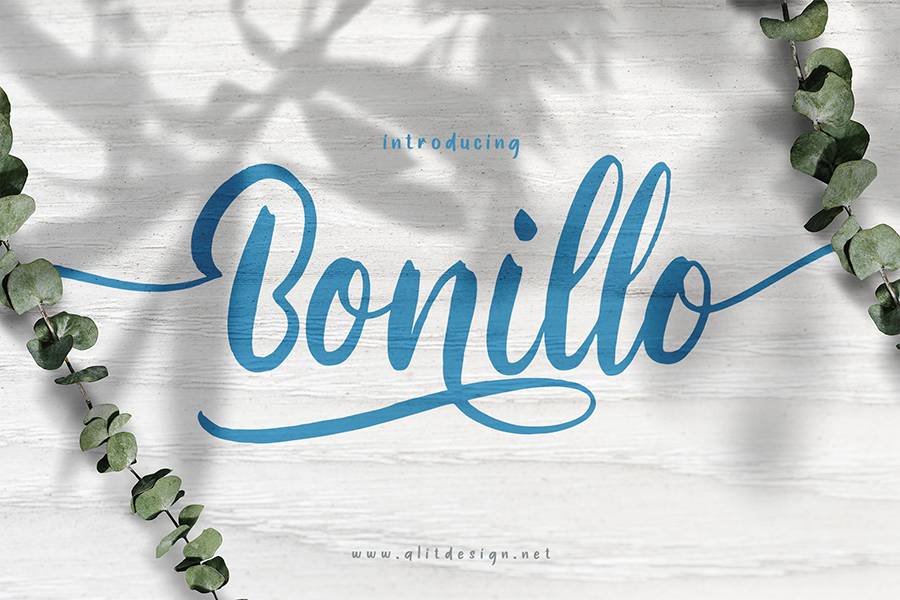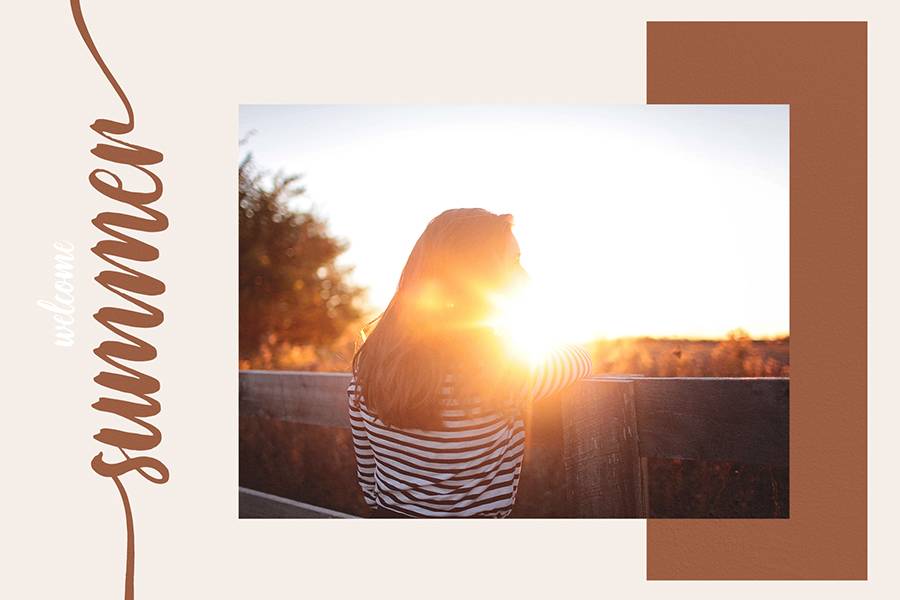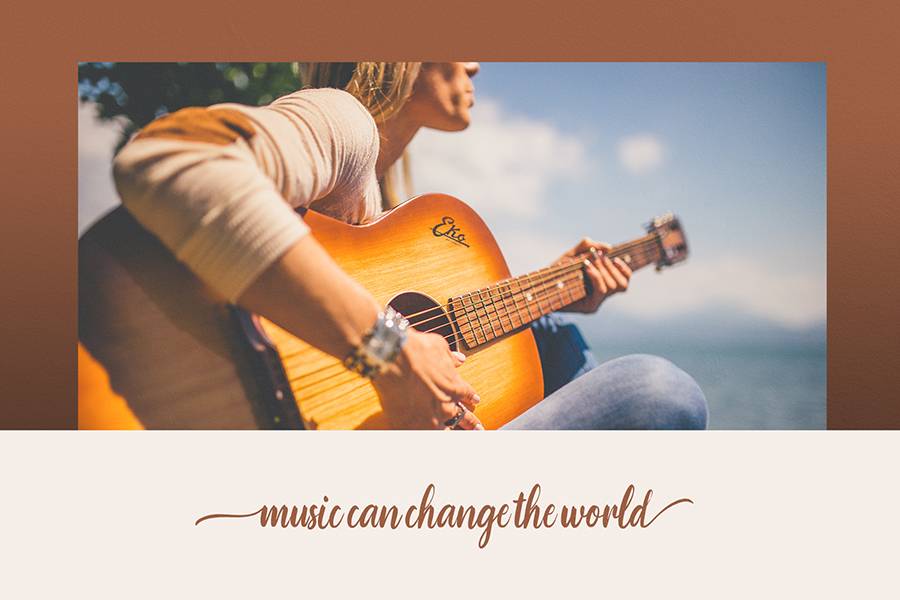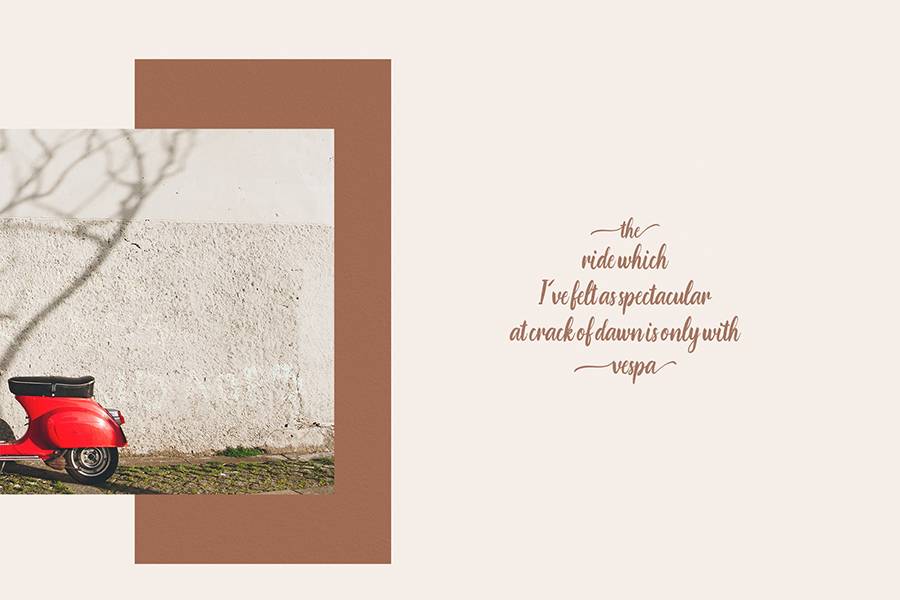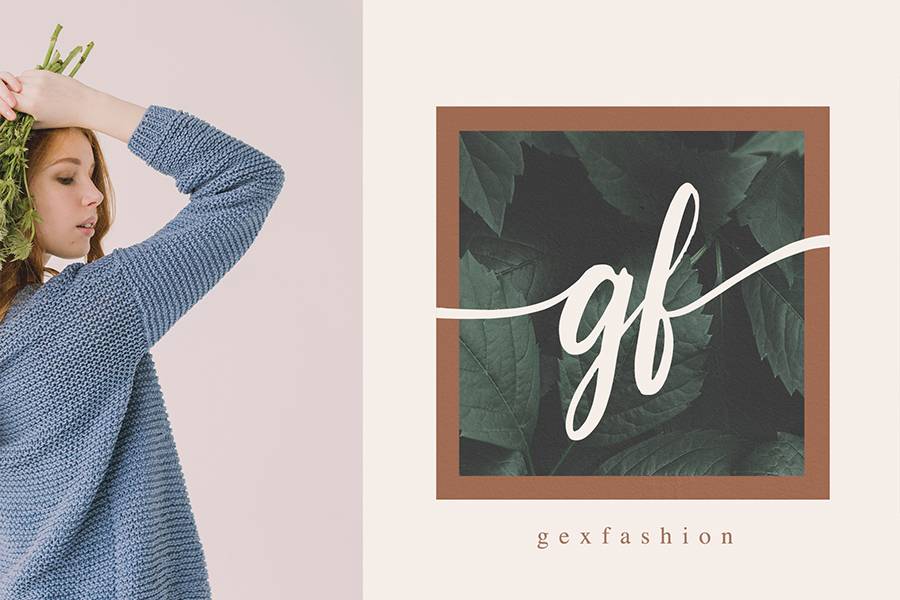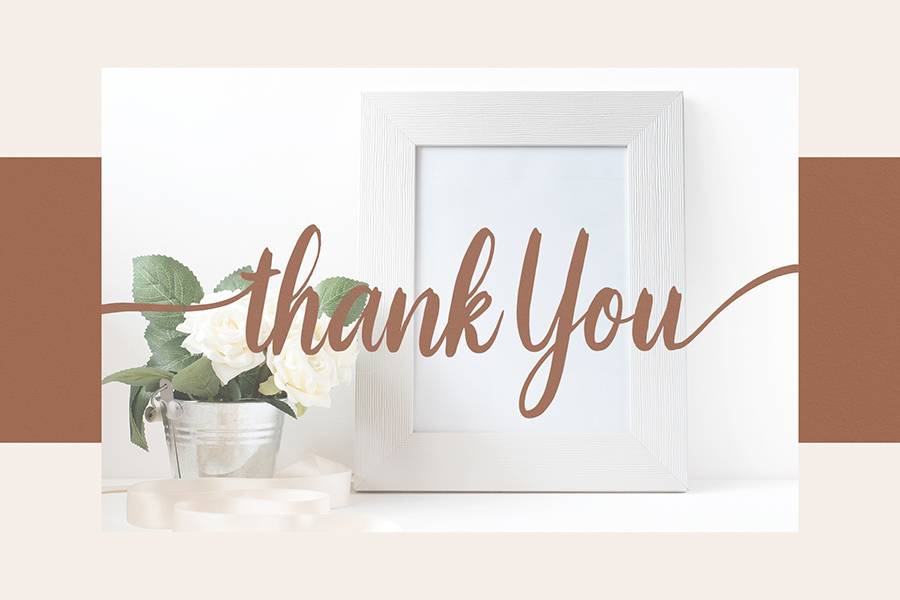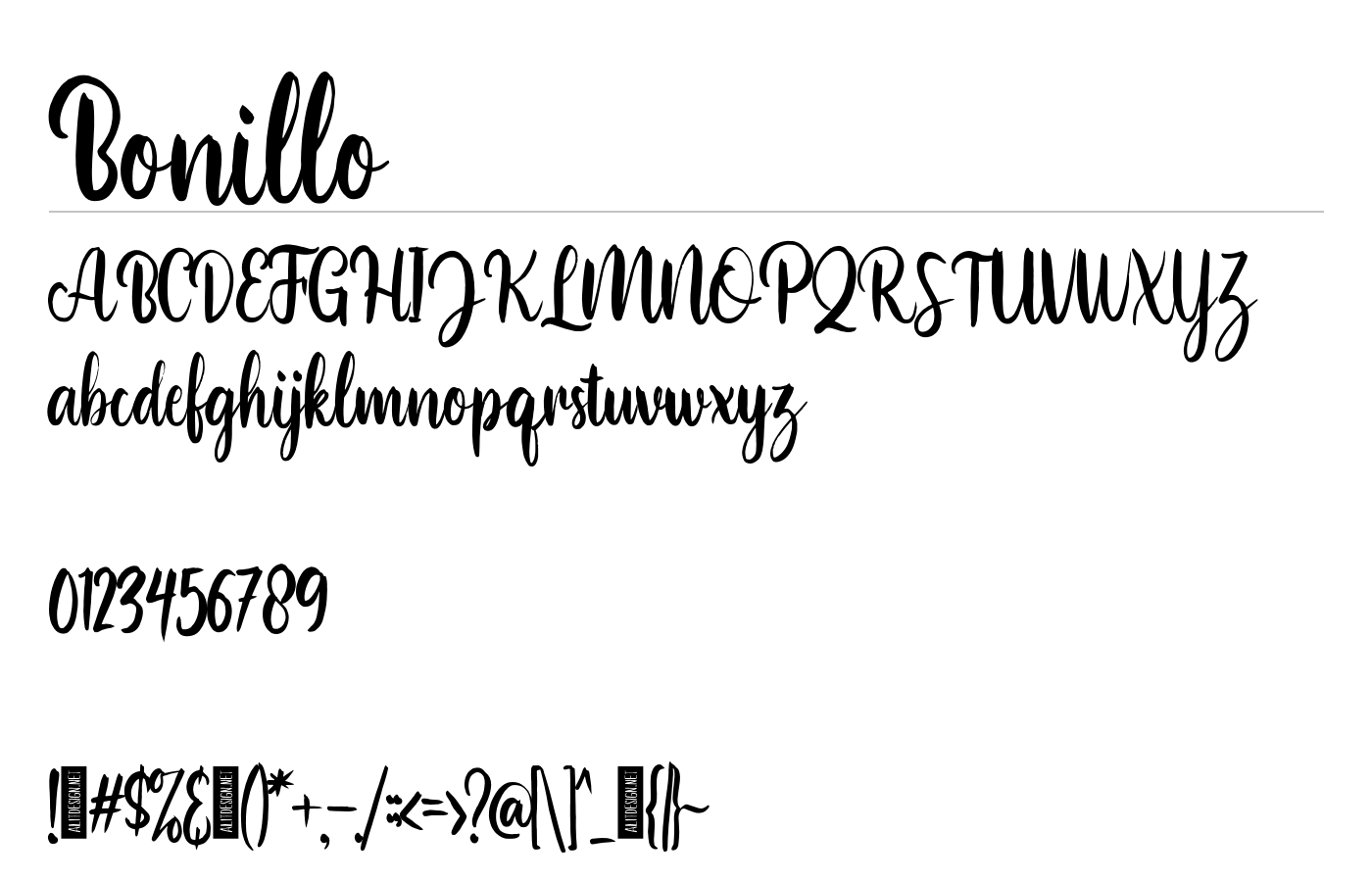
Bonillo Handlettering Script is a lively and elegant script font with a smooth, flowing style that mimics natural brush lettering. Its medium weight and slightly condensed letterforms combine modern charm with a playful yet sophisticated personality, making it ideal for creative branding, invitations, and eye-catching headlines. This font works well where a personal, artistic touch is desired, bringing warmth and style to both digital and print designs.
Bonillo Handlettering Script Font
About Bonillo Handlettering Script Font
| Font family | Bonillo Handlettering Script Font |
| Designer | Alit Suarnegara |